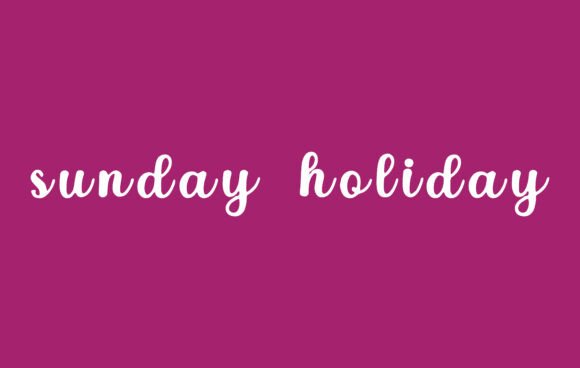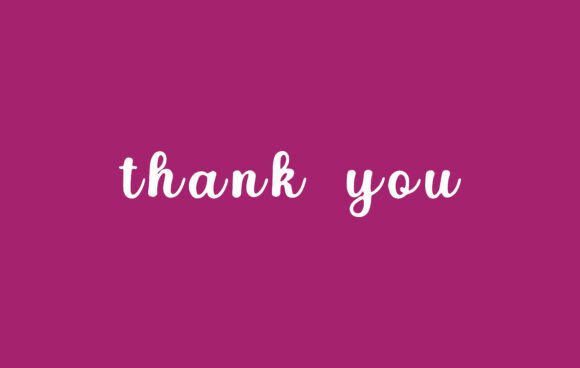
Aviana Font: Elevate Your Designs with a Romantic Touch
Are you looking for a font that can add a touch of elegance and romance to your designs? Look no further than Aviana Font, a beautifully crafted handwritten font that is sure to become a favorite among designers and crafters alike. With its unique blend of sophistication and whimsy, Aviana Font is the perfect choice for a wide range of design projects, from magazine headlines and social media graphics to branding, wedding invitations, and more.
The Characteristics of Aviana Font
Aviana Font is an authentic handwritten font that boasts a romantic touch, making it perfect for designs that require a personal and emotional connection. This font is expertly designed to be highly legible, making it suitable for use as both title and body text. Its elegant and flowing lines give it a sophisticated feel, while its whimsical touches add a playful and creative edge.
What Makes Aviana Font Stand Out
So, what sets Aviana Font apart from other fonts on the market? Here are just a few reasons why this font is a cut above the rest:
- Unique and Authentic Design: Aviana Font is a one-of-a-kind, handcrafted font that has been designed to be both beautiful and functional.
- High Legibility: This font is optimized for readability, making it perfect for use in a variety of design applications, from large headlines to smaller body text.
- Romantic and Elegant: Aviana Font has a distinctly romantic and elegant feel, making it perfect for designs that require a touch of sophistication and whimsy.
- Versatile: This font can be used in a wide range of design projects, from digital graphics and social media to print materials and more.
Using Aviana Font in Your Designs
Aviana Font is an incredibly versatile font that can be used in a wide range of design projects. Here are just a few ideas to get you started:
- Magazine Headlines: Use Aviana Font to create eye-catching headlines and titles that will grab the attention of your readers.
- Social Media Graphics: Add a touch of elegance and sophistication to your social media graphics with Aviana Font.
- Branding: Use Aviana Font to create a unique and memorable brand identity that will set you apart from the competition.
- Wedding Invitations: Aviana Font is perfect for wedding invitations, adding a touch of romance and whimsy to your special day.
- Cards and Stationery: Use Aviana Font to create beautiful and elegant cards and stationery that will make a lasting impression.
Tips for Getting the Most Out of Aviana Font
To get the most out of Aviana Font, here are a few tips to keep in mind:
- Experiment with Different Sizes and Styles: Aviana Font looks great in a variety of sizes and styles, so don’t be afraid to experiment and find the perfect look for your design.
- Pair with Other Fonts: Aviana Font pairs well with a variety of other fonts, so try combining it with other fonts to create a unique and interesting look.
- Use in Combination with Images: Aviana Font looks great in combination with images, so try using it to add a touch of elegance and sophistication to your graphics.